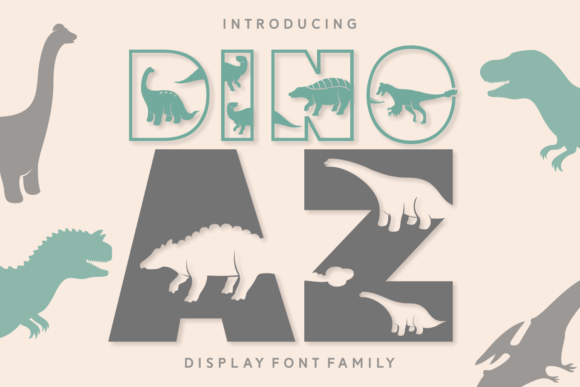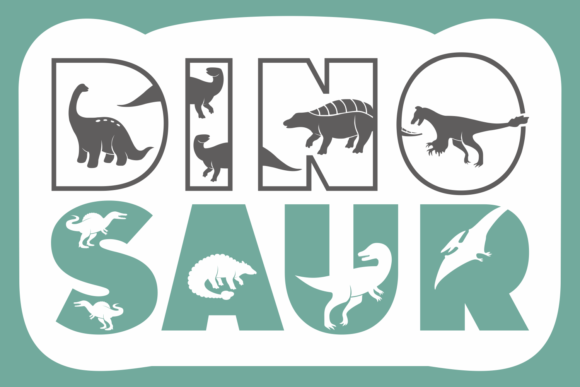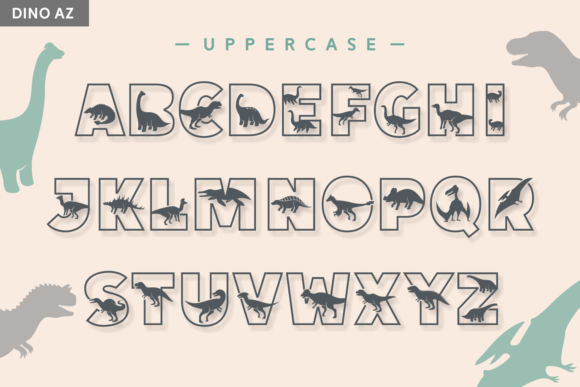
Dino Az Font
About the Dino Az Font
The Dino Az Font is here to transform your projects with its distinctive character and style. Dino Az is a cool, uniquely shaped and interesting decorative font. It embodies playfulness and authenticity and is the perfect choice for any children activity or school project. This font is PUA encoded which means you can access all of the glyphs and swashes with ease!
Dino Az’s playful personality makes it ideal for children’s books, branding for toy companies, playful posters, and eye-catching packaging designs. It also works well for headlines and short text snippets needing a fun, distinctive feel. However, its decorative nature makes it unsuitable for body text, long paragraphs, or user interface elements where readability is paramount.
Pairing Dino Az effectively requires a contrasting font for balance. A clean sans-serif like Open Sans or a simple serif like Lora would provide excellent readability for supporting text. For a more playful pairing, consider a rounded sans-serif such as Bubblegum Sans.
The font’s core personality is undeniably playful and friendly, but with a touch of boldness. This makes it a strong choice for brands targeting a younger audience or projects emphasizing fun and creativity.
Dino Az Font Usage Examples
Dino Az Font Example